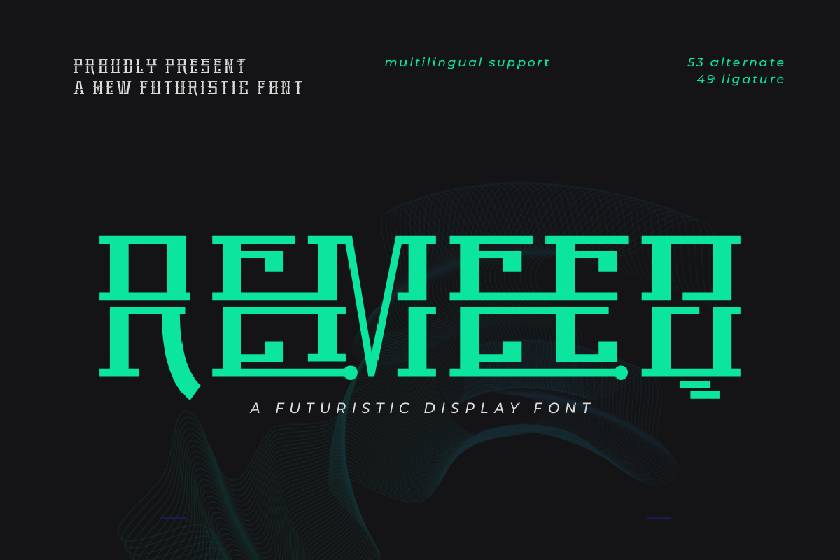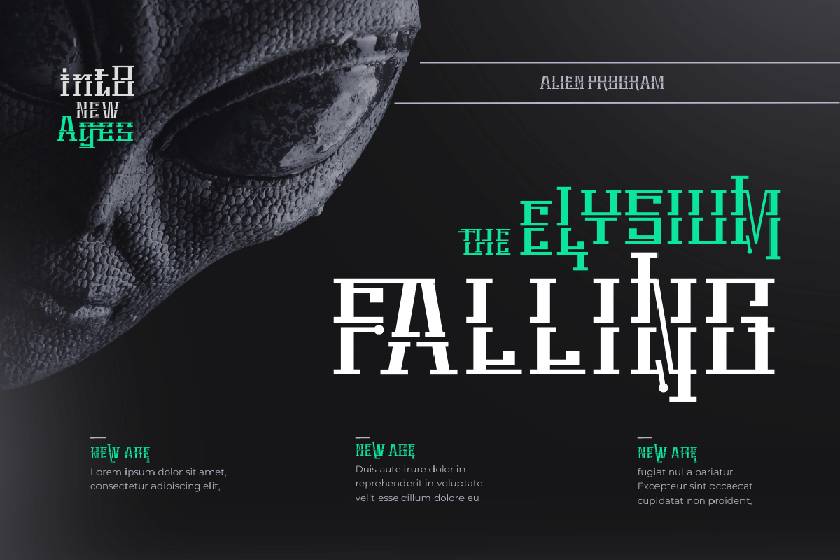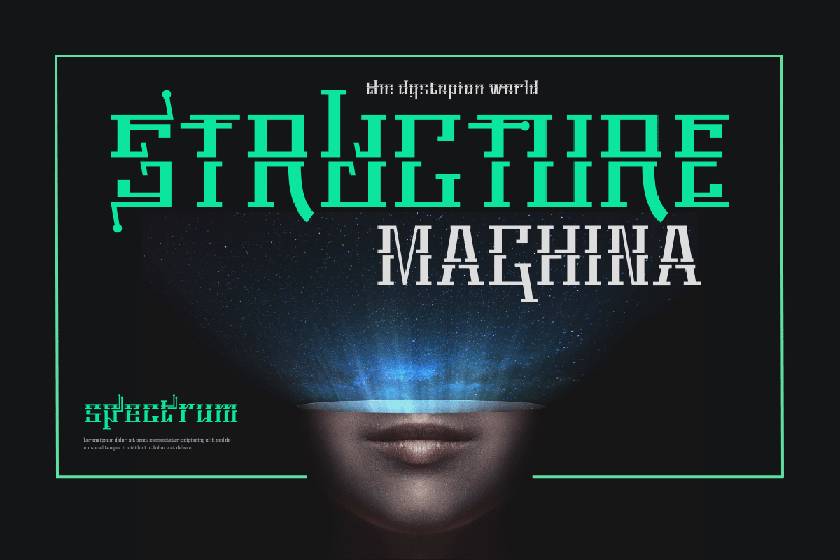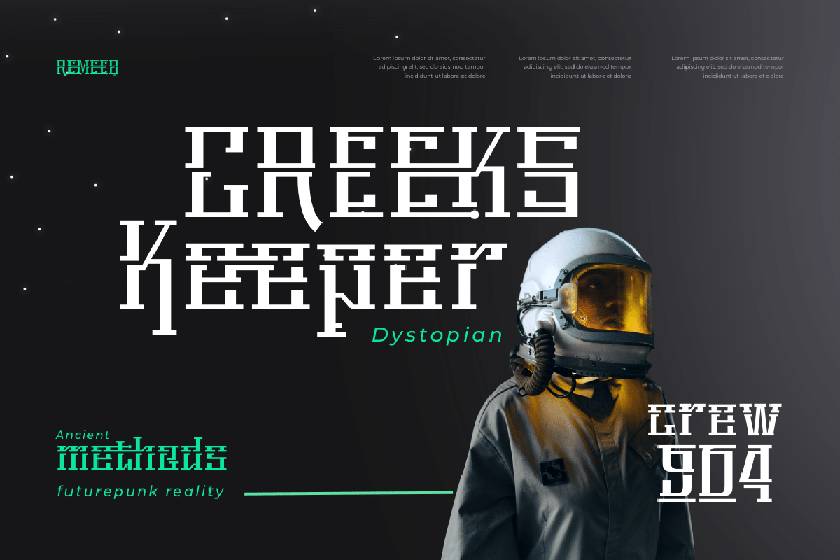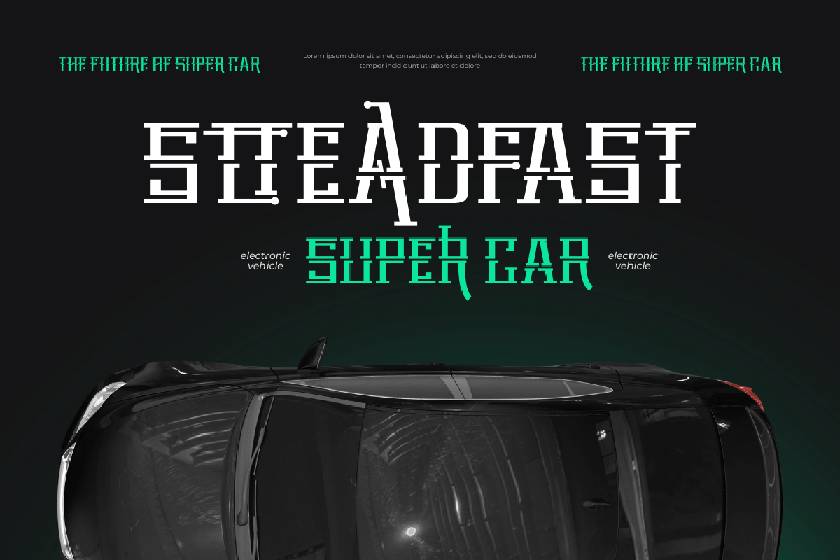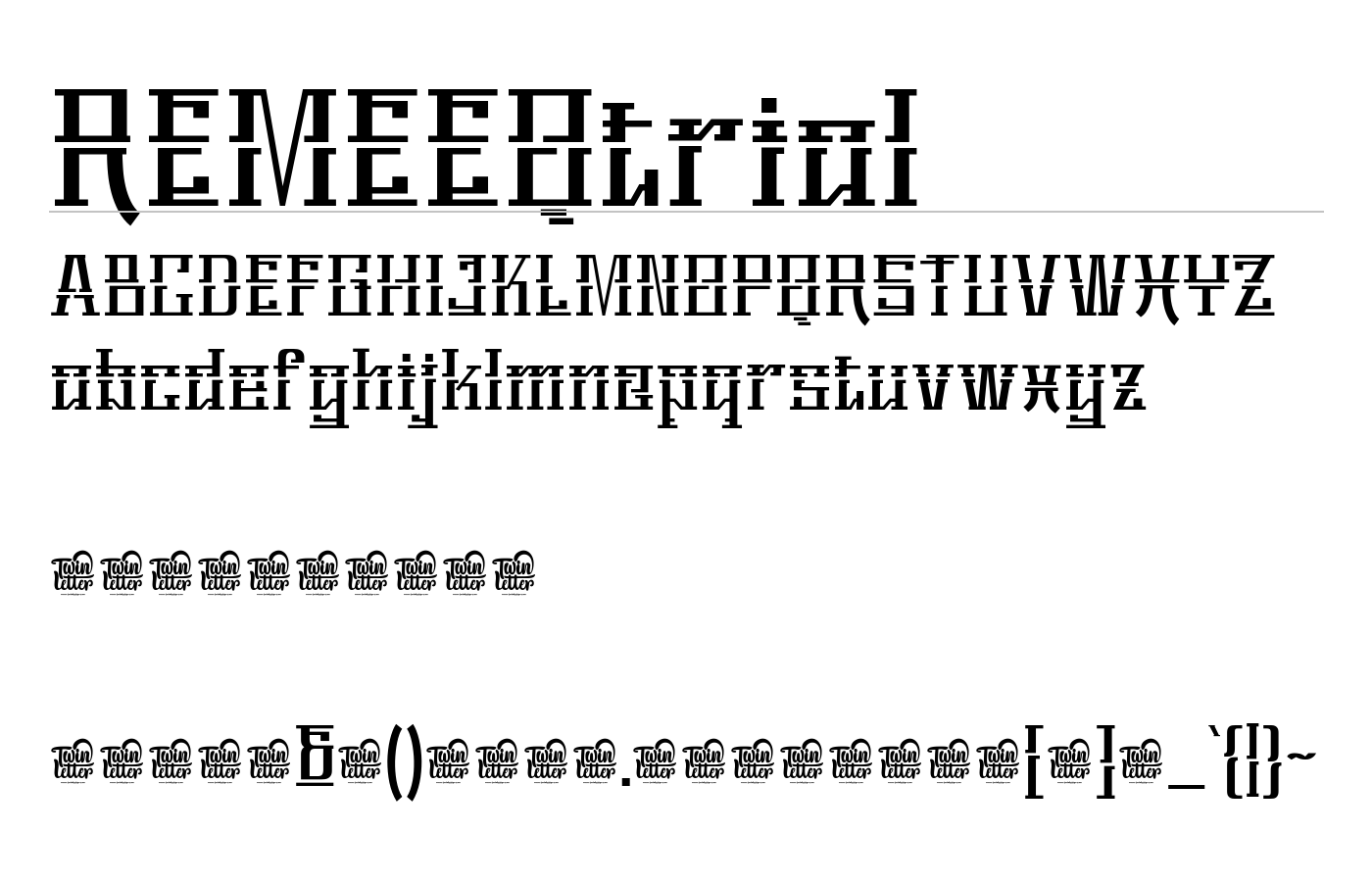
Remeeq is a distinctive slab serif font with a bold, condensed structure and high contrast between thick and thin strokes. Its sharp, geometric letterforms and unique, stylized details create a modern yet slightly vintage feel, making it ideal for capturing attention in logos, headlines, and editorial designs where a strong, impactful presence is desired. This font works best in creative, urban, or avant-garde branding contexts, offering a blend of seriousness and artistic flair.
Remeeq Font
About Remeeq Font